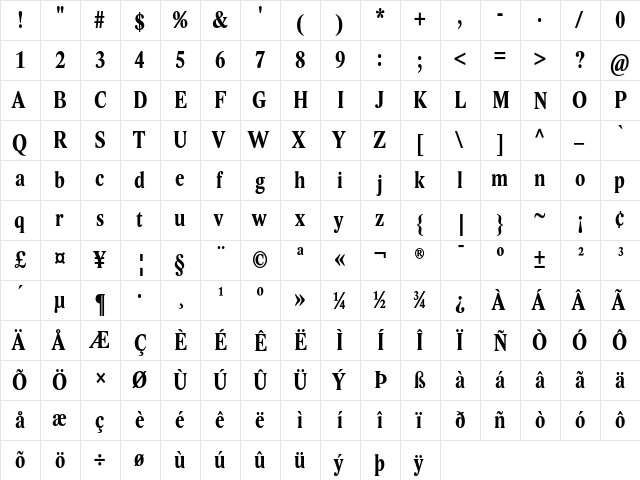
Lido STF Cond Bold
Design Context for Lido STF Cond Typeface
Lido STF Cond takes a measured approach to typography — its balanced proportions and neutral character make it a reliable workhorse for both digital and print work. Its bold stroke weight gives it real presence on the page. The condensed width makes it efficient for tight spaces without sacrificing legibility.